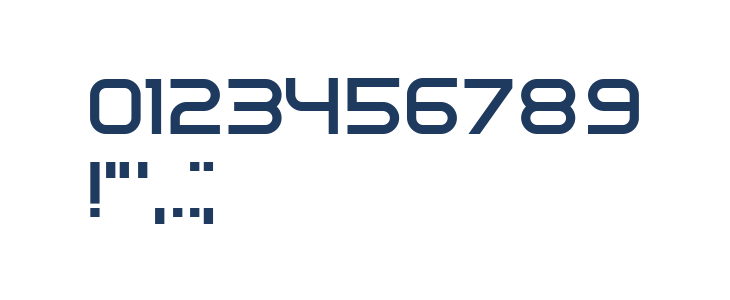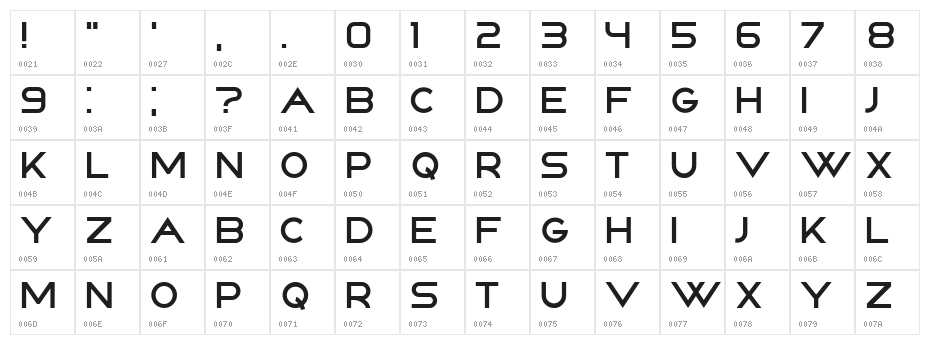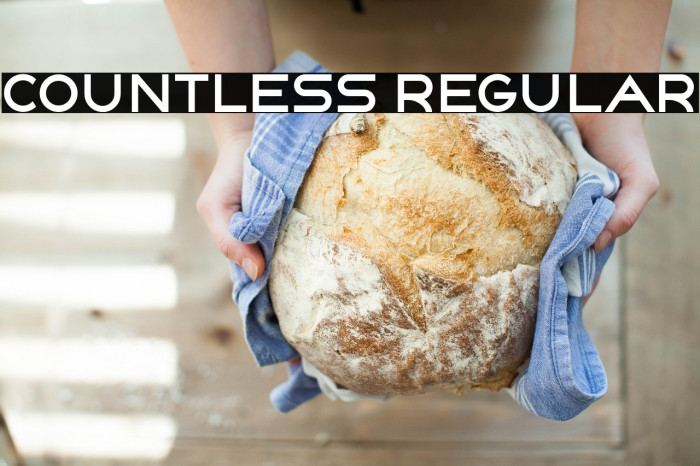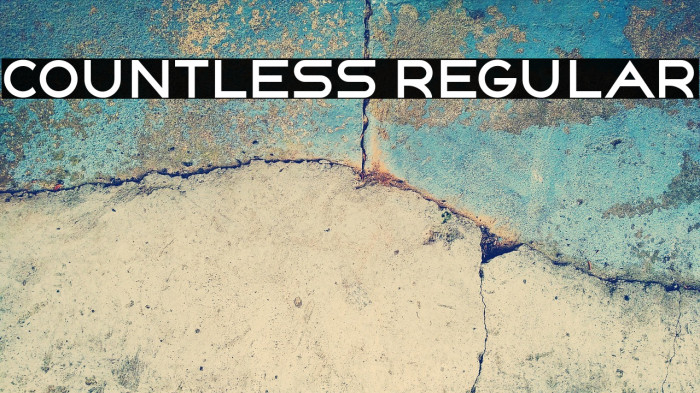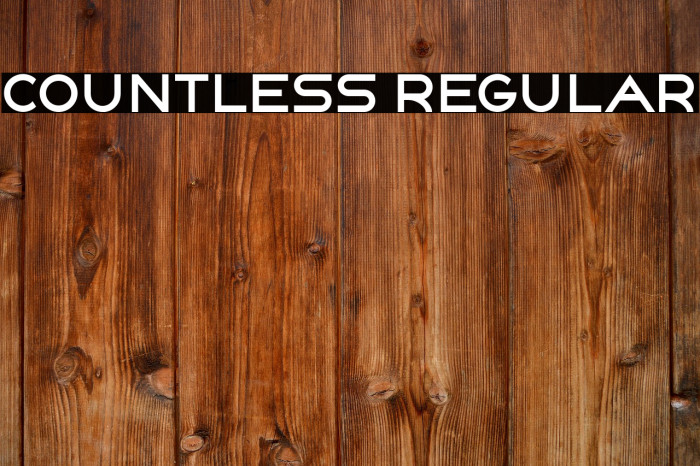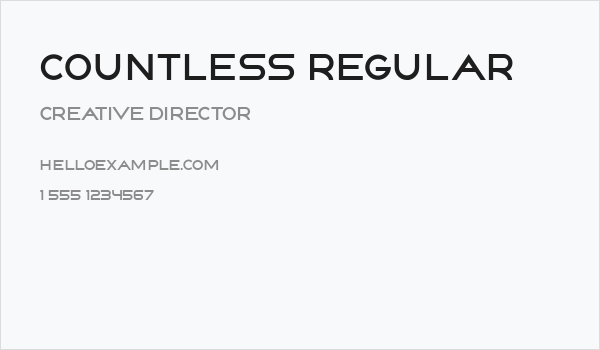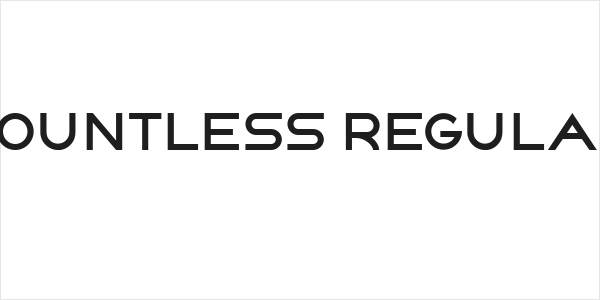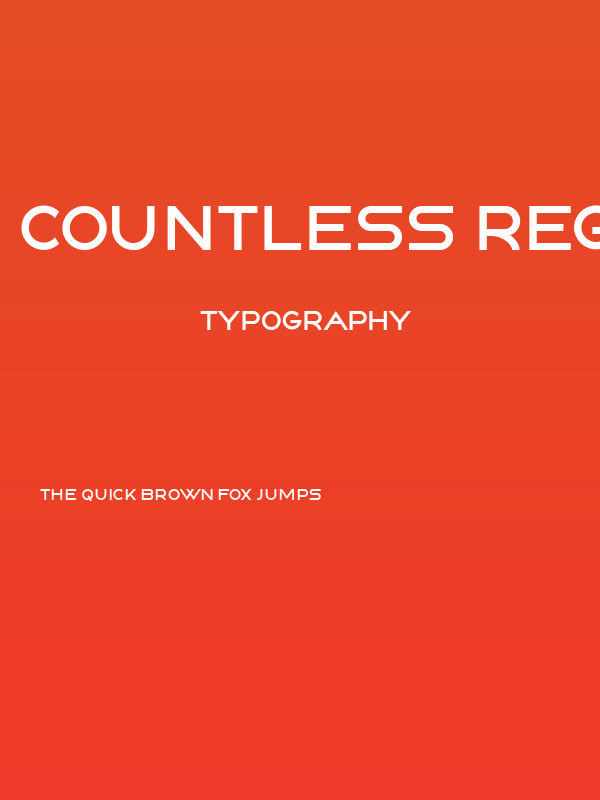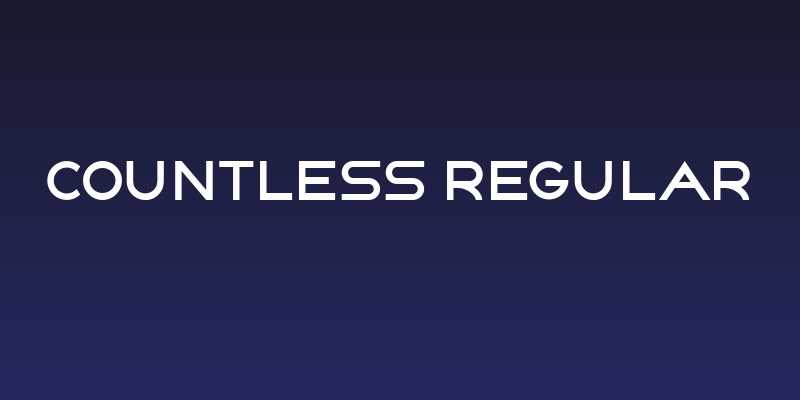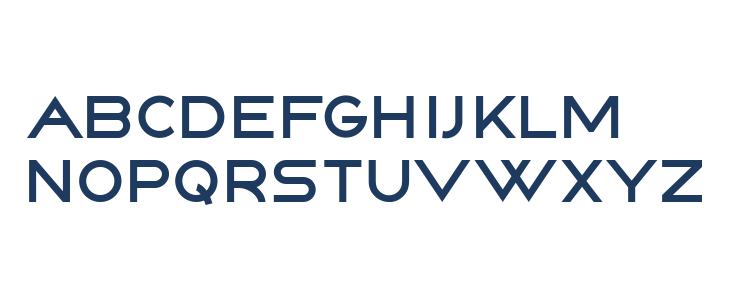
Countless Regular Font
Countless Regular Description
This font features a modern, geometric design with clean lines and a uniform structure. The characters are bold and have a consistent stroke width, giving them a strong and impactful appearance. The uppercase and lowercase letters maintain a similar style, with a focus on clarity and readability. The numbers are distinct and align well with the overall aesthetic. Special characters are designed to match the boldness and geometric nature of the font, making it versatile for various uses.
| Use Case | Headlines, Logos, Digital Interfaces |
| Proposed Projects | Ideal for technology branding, modern advertising, digital interfaces, and futuristic design projects. |